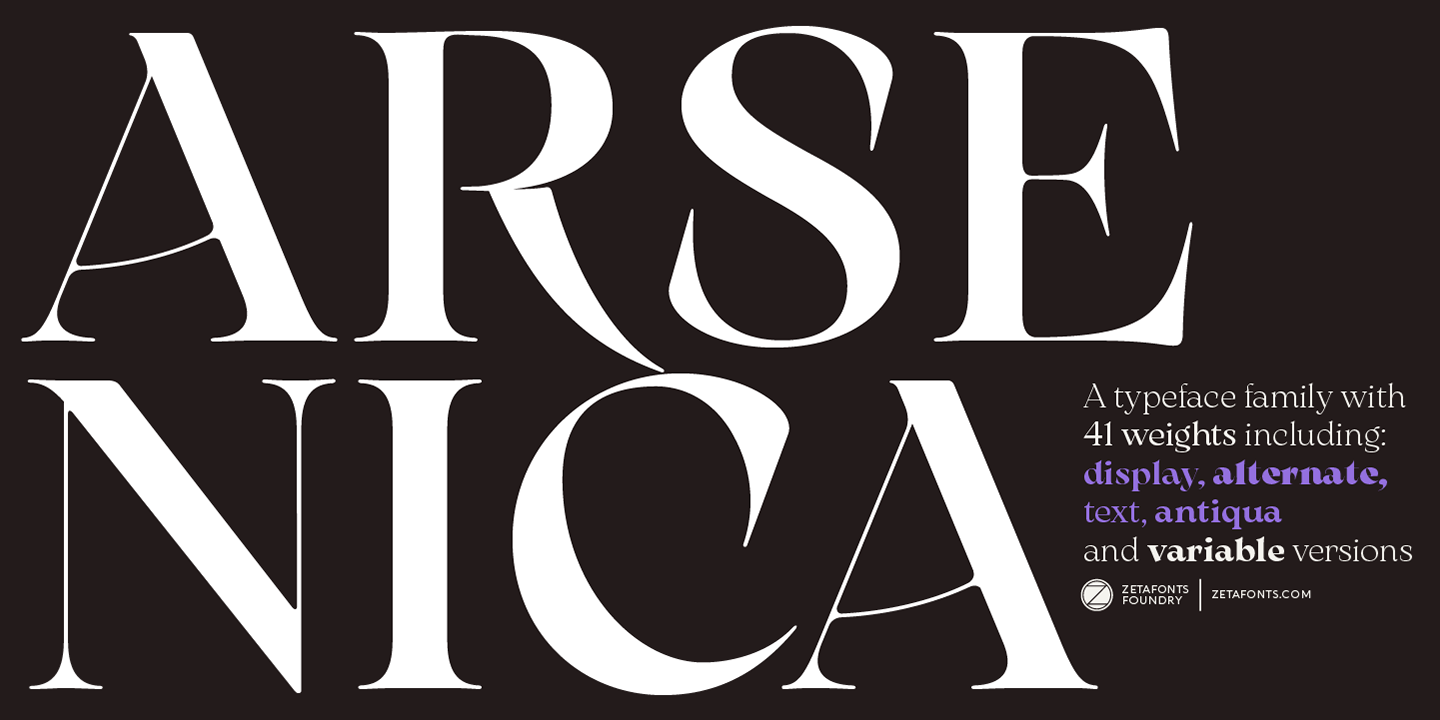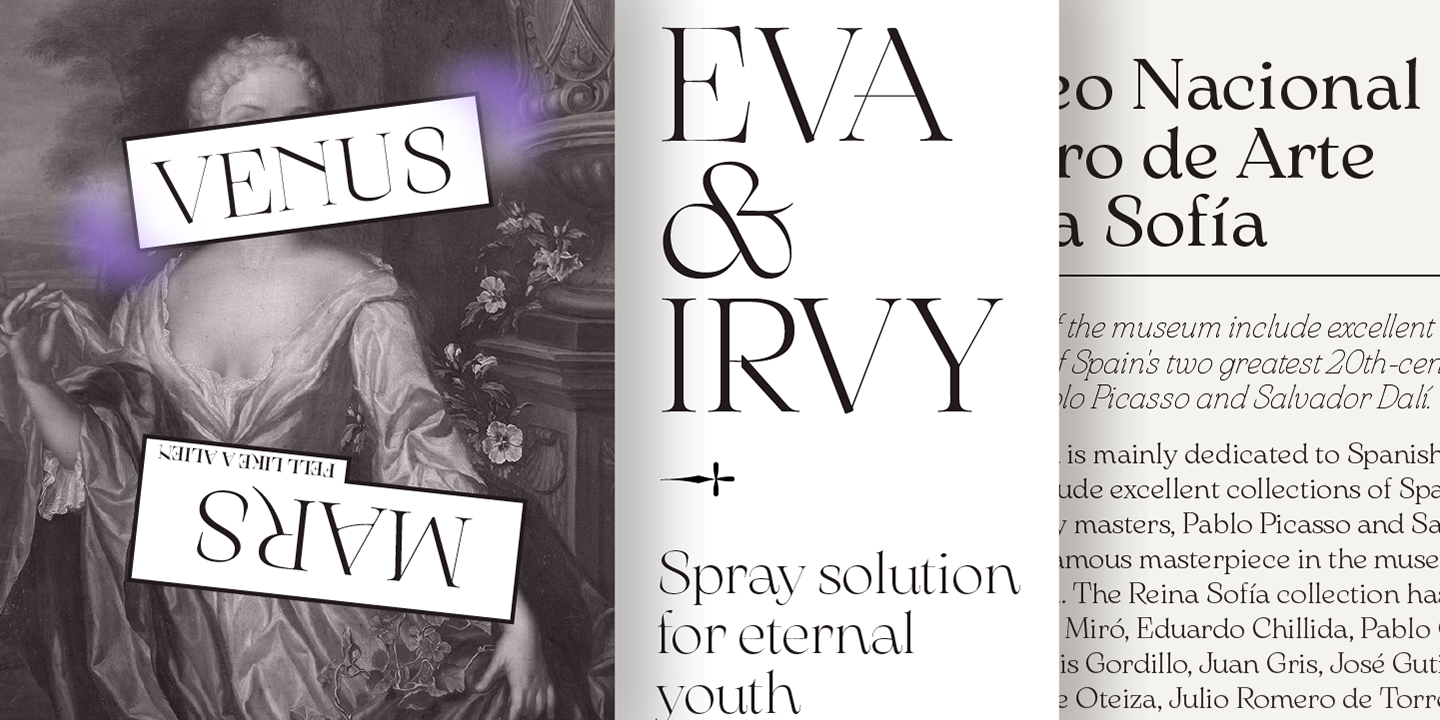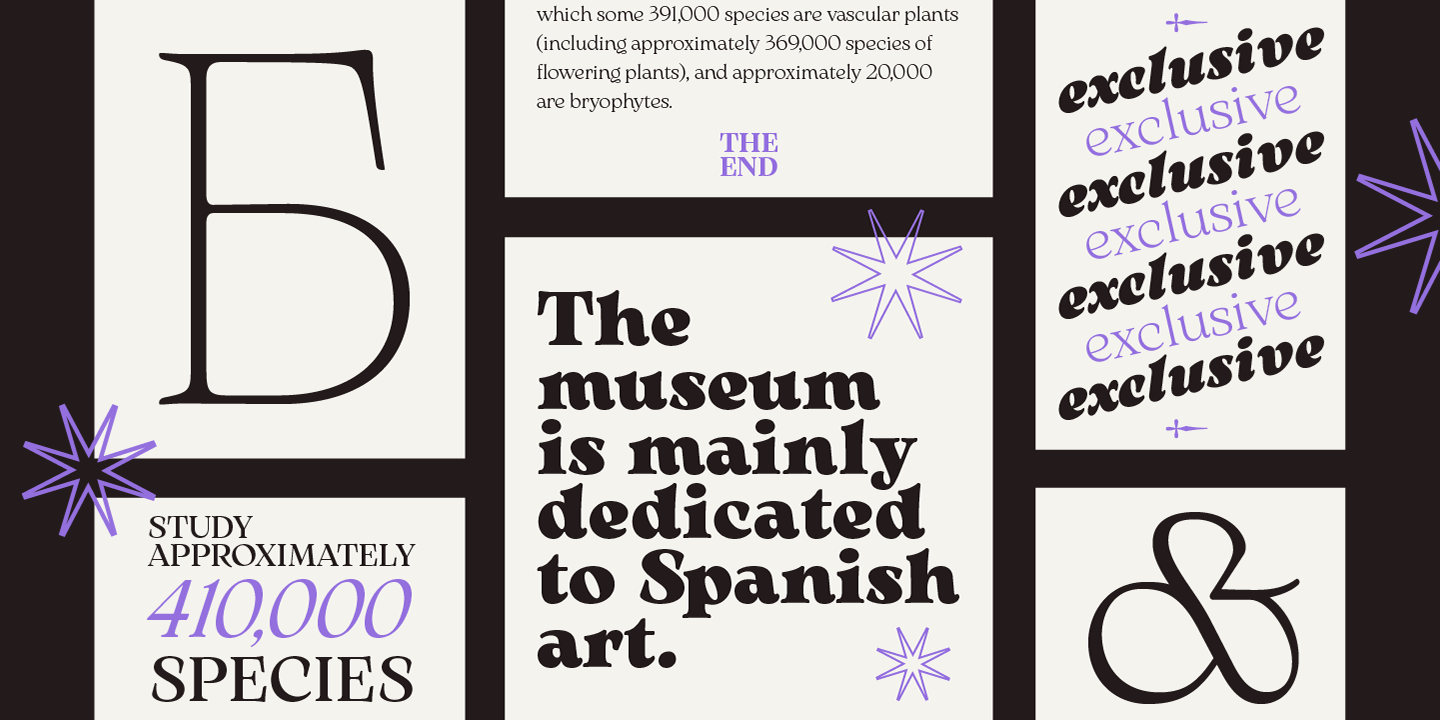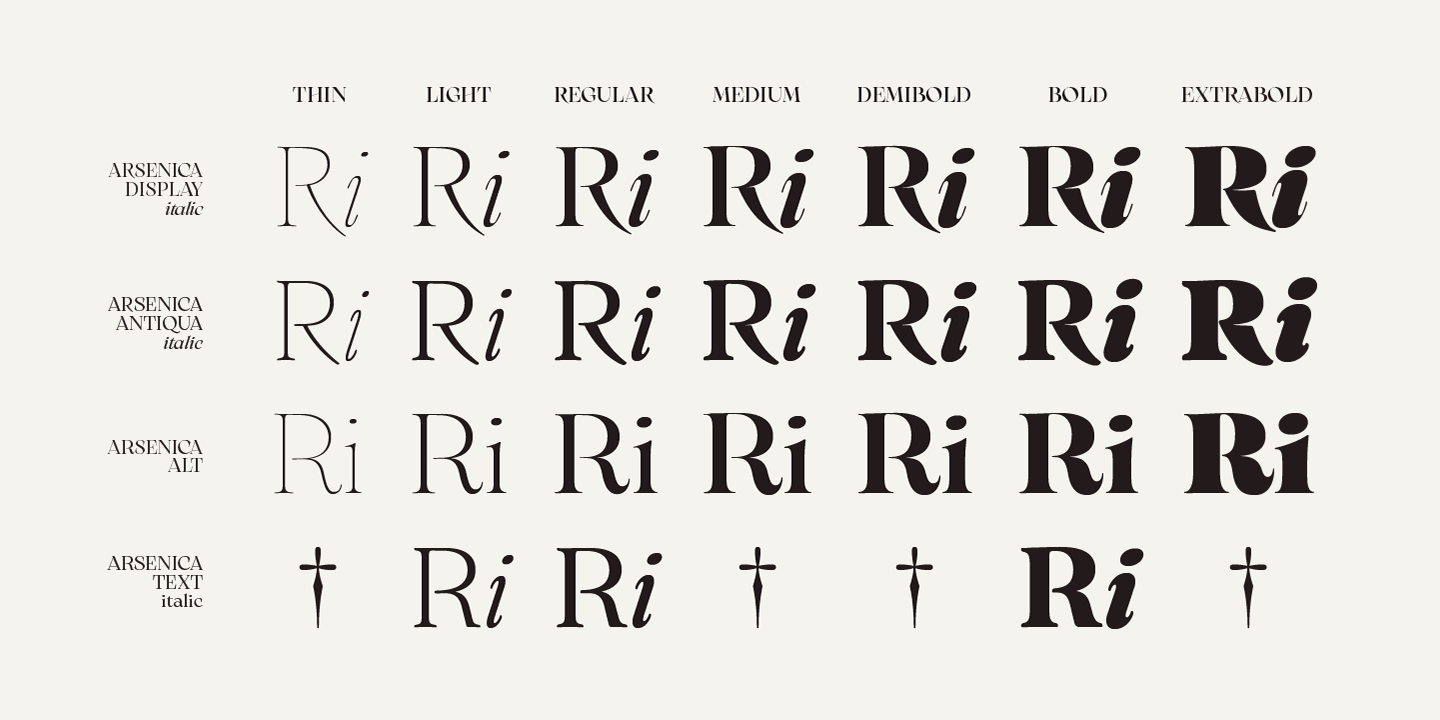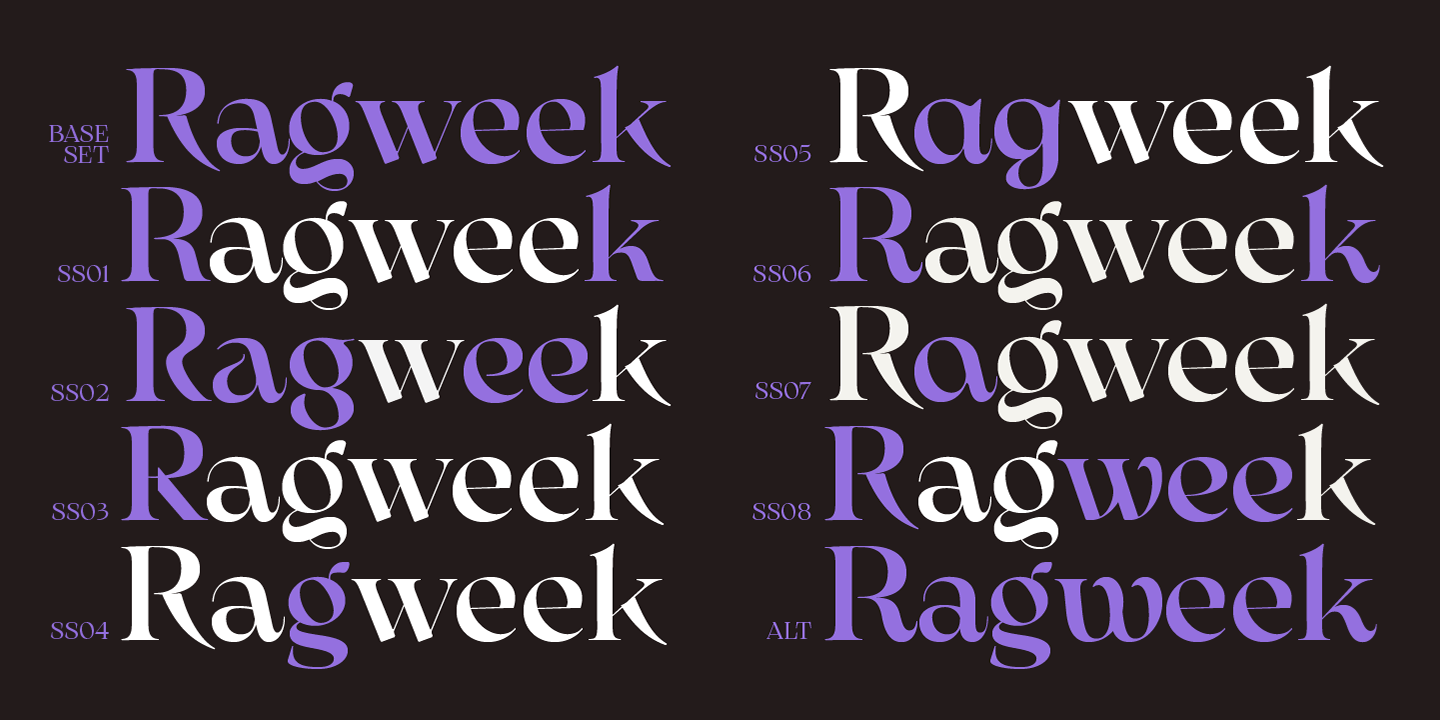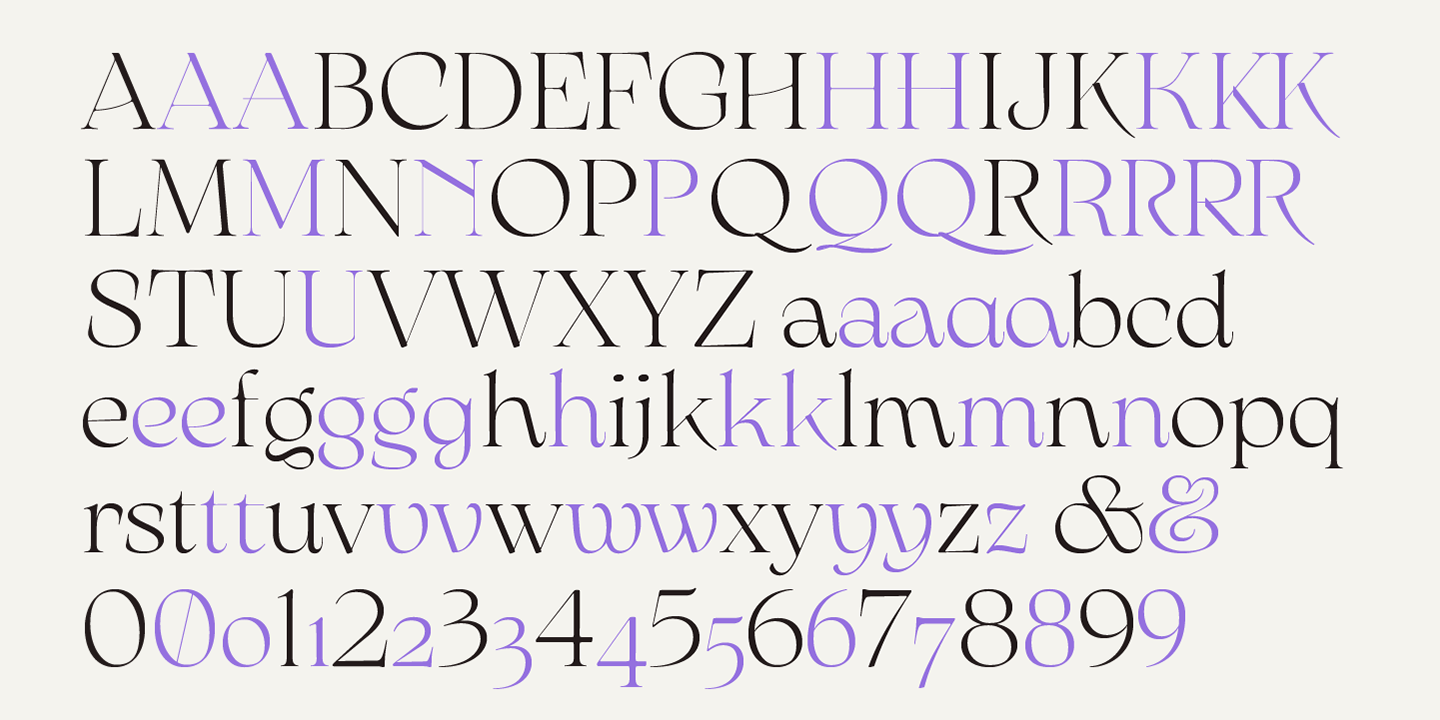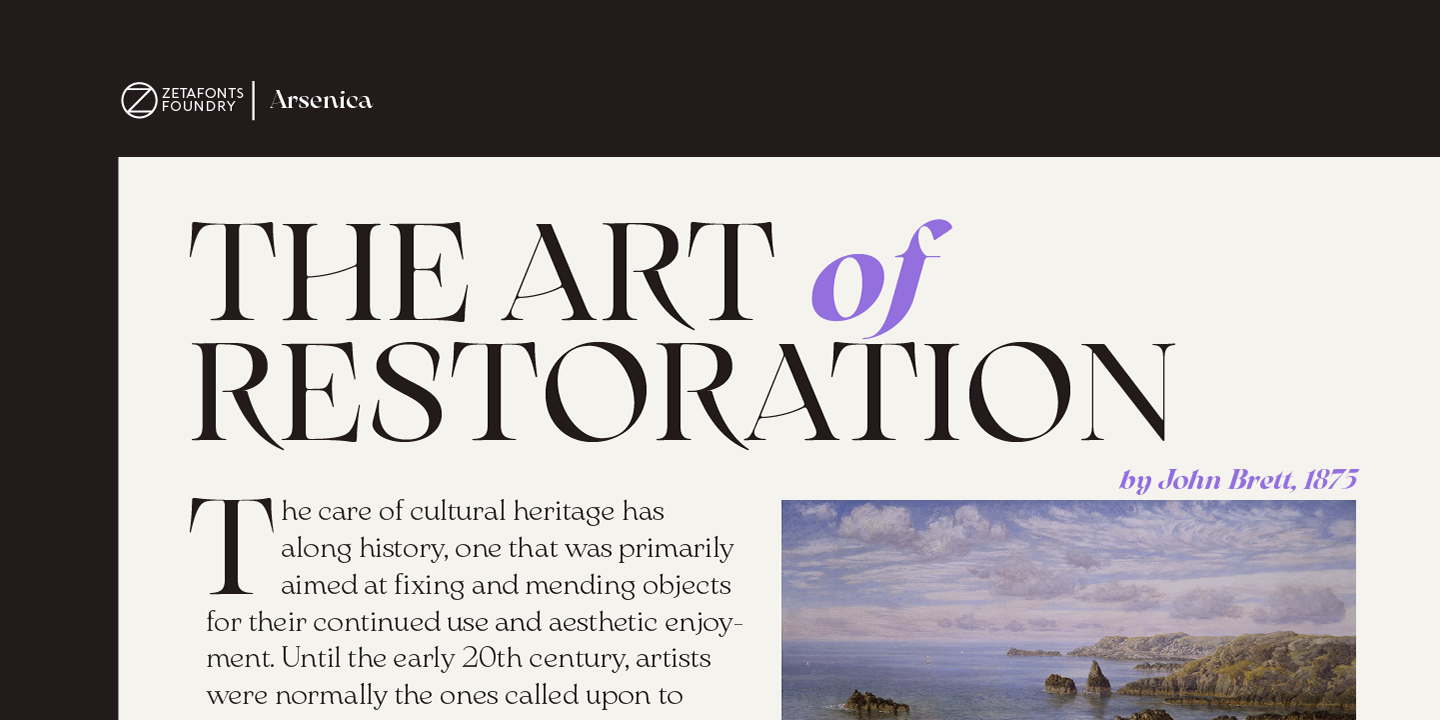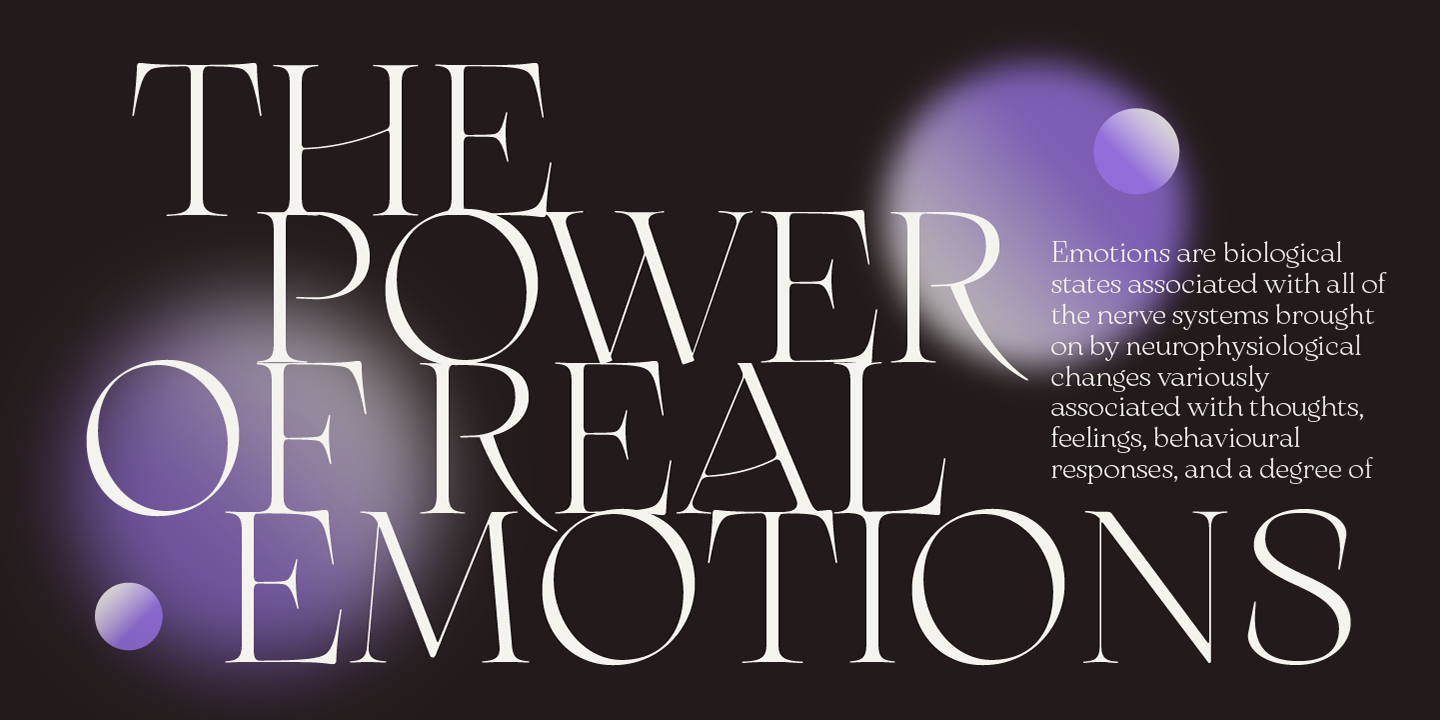
About the Arsenica Font
About Arsenica Font Family Arsenica is a serif typeface designed by Francesco Canovaro for Zetafonts, and developed by a design team including Mario De Libero, Andrea Tartarelli and Cosimo Lorenzo Pancini, The design of Arsenica takes its inspiration from Italian poster design at the beginning of the century, a time where typography, lettering and illustration where closely interwoven